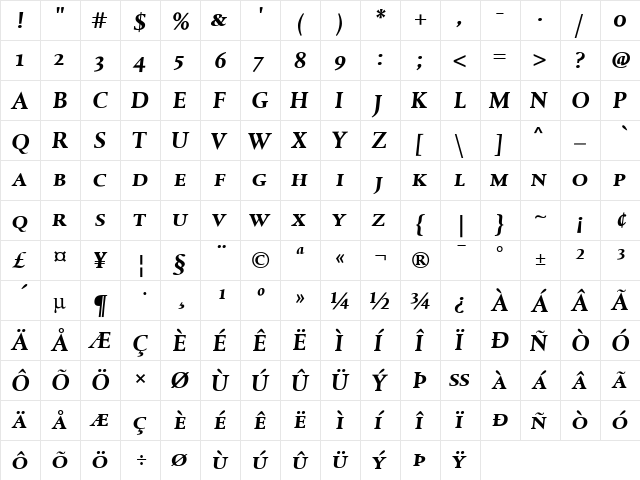
DTLAlbertinaTCaps ItalicBold
Design Context for DTLAlbertinaTCaps Typeface
DTLAlbertinaTCaps is a composed and adaptable typeface that performs quietly and consistently across a wide range of design contexts. The slanted form adds forward momentum and visual energy. The heavy weight commands attention and anchors typographic hierarchies.
Pro Tip: Use DTLAlbertinaTCaps for emphasis, pull quotes, and subheadings where its slanted energy can add rhythm to the layout.